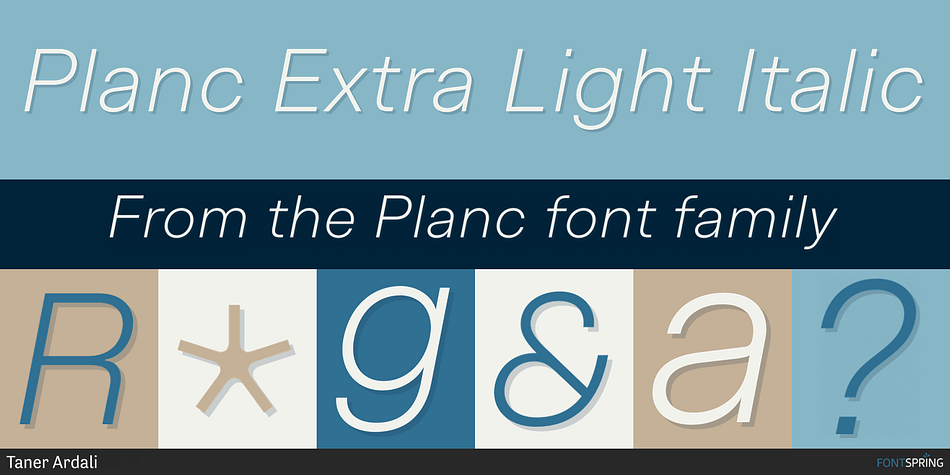
Planc Extra Light Italic
Designed by Taner Ardali, Planc is a sans serif font family. This typeface has twenty styles and was published by Taner Ardali.
Planc has emerged as an approach to reconsider the grotesque font anatomy in a contemporary way. It is a new grotesque family with its subtle touches of details. Its relaxed proportional structure differentiates Planc from the usual grotesque anatomy, meeting the grotesque font requirement that can keep up with today.
In addition to the solid grid structure on the horizontal axis, with its smoothed curves, Planc provides a comfortable reading flow and avoids being dull with its details. Its minimalist approach comes from Planc’s reduced dysfunctional details. As a clean design principle, it contains innovative letterforms.
Planc font family consists of 10 weights including matching italics with extended Latin character set. It is a designer-friendly typeface with extra symbols, standard-old style,tabular-proportional numbers, arrow sets, and stylistic alternates.